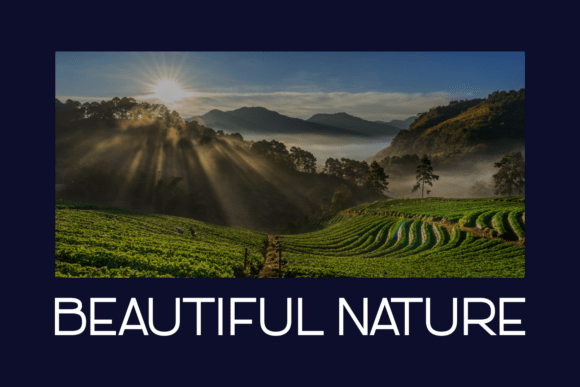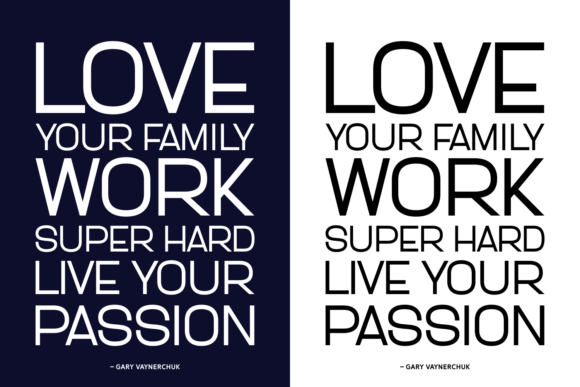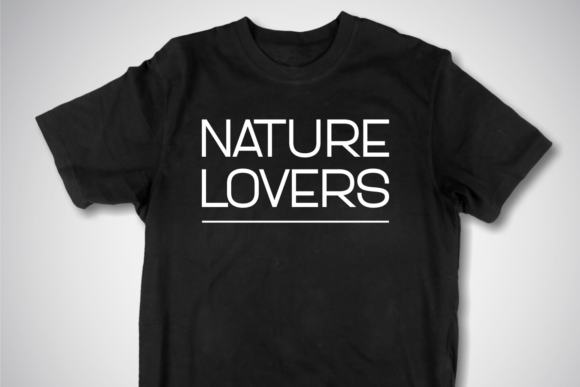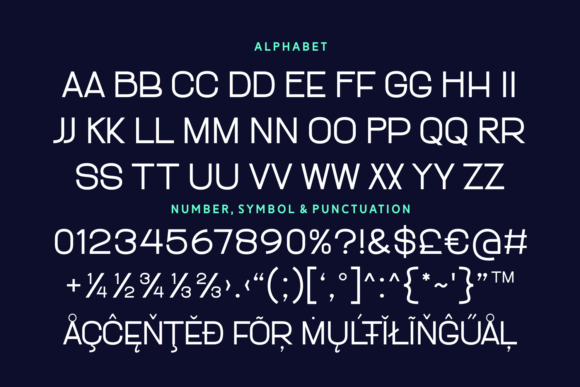
Unleashing the Power of Blue Story Font
Remember the moment when you finally nailed the perfect design concept, and everything just clicked? That rush of excitement and satisfaction is what drives designers to push the boundaries of creativity. For those who crave that perfect visual impact, we’re excited to introduce Blue Story Font – a bold and modern sans serif typeface designed to make your message unforgettable.
With its clean lines, geometric structure, and sleek curves, Blue Story Font is perfect for a wide range of applications, from branding and tech projects to digital interfaces, posters, and editorial layouts. Its unique balance of elegance and clarity makes it an invaluable asset for designers seeking to elevate their work. By incorporating Blue Story Font into your design arsenal, you’ll be able to create sharp, eye-catching visuals that leave a lasting impression on your audience.
Blue Story Font Key Features
- Font Family: Blue Story Font is a modern sans-serif font designed for digital use, ideal for headings and titles.
- Size: The font family includes a range of weights from Light to Extra Bold, allowing for flexibility in design and layout.
- Resolution: Optimized for high-resolution displays, making it perfect for use in digital media, such as websites, mobile apps, and video games.
- Unique Characteristics: The font features a unique blend of geometric and organic shapes, giving it a distinctive and modern look that sets it apart from other sans-serif fonts.
- Character Count: The font family includes a wide range of characters, including Latin, Cyrillic, and Greek scripts, making it suitable for use in multilingual designs.
Designer Review: Blue Story Font
Overall, I have mixed feelings about the Blue Story Font. While it has some great qualities, it also has some significant limitations.
The font’s unique, modern aesthetic is certainly eye-catching. Its distinctive letterforms and stylized numerals make it well-suited for use in digital interfaces and branding materials.
Blue Story Font’s extensive language support is a major plus, making it a great option for global brands and companies that need to communicate with diverse audiences.
The font is highly customizable, with a wide range of weights, styles, and optical sizes to choose from. This makes it easy to tailor the font to suit your specific design needs.
The font’s readability can be a bit of an issue, particularly at smaller font sizes. Some characters may be difficult to distinguish from one another, which can make the text harder to read.
Blue Story Font’s design is quite bold and attention-grabbing, which may not be suitable for all types of content or design projects. For example, it may not be the best choice for academic or technical writing.
In conclusion, while Blue Story Font has some great qualities, its limitations mean that it may not be the best choice for every design project. However, it can be a great option for those who want a modern, eye-catching font with extensive language support and high customization options.
Blue Story Font Practical Application Guide
To get the most out of the Blue Story font, use it sparingly and in creative ways, such as in headings or titles. You can also combine it with other fonts to create a unique visual identity.
The Blue Story font is commonly used in:
- Streetwear branding
- Urban fashion designs
- Music festival branding
- Street art-inspired designs